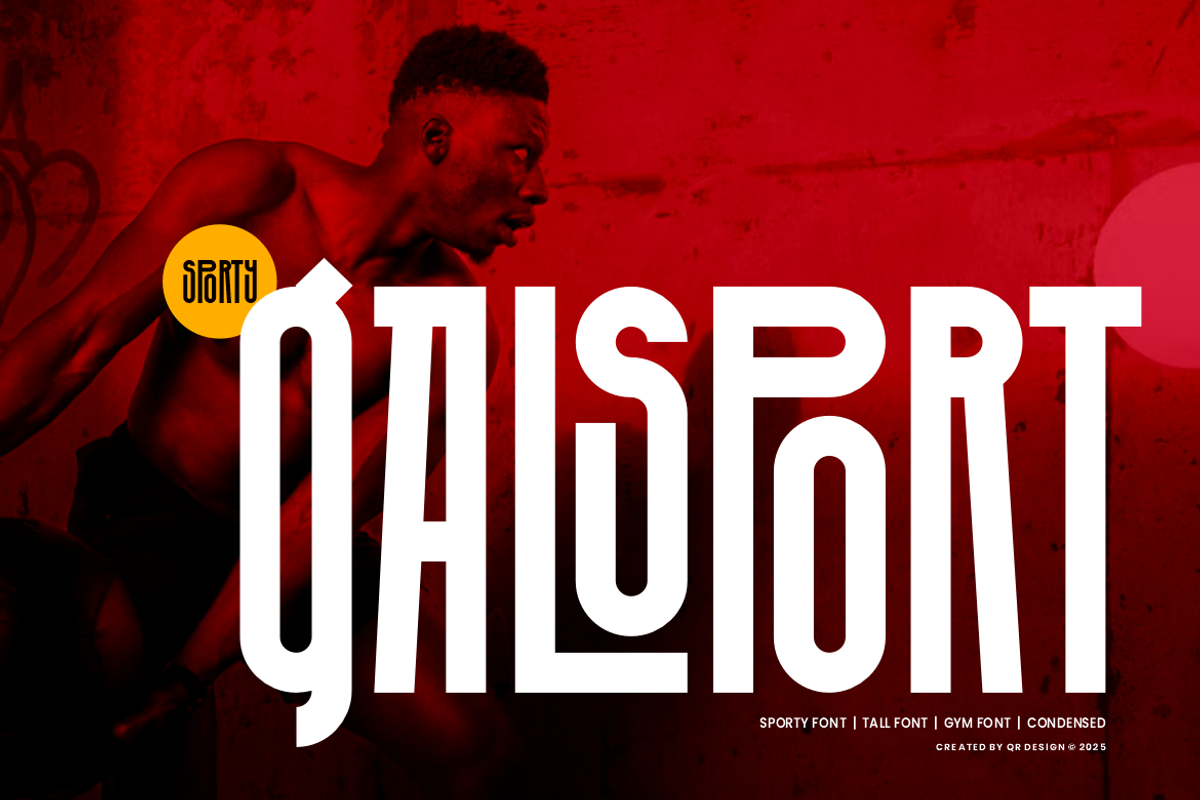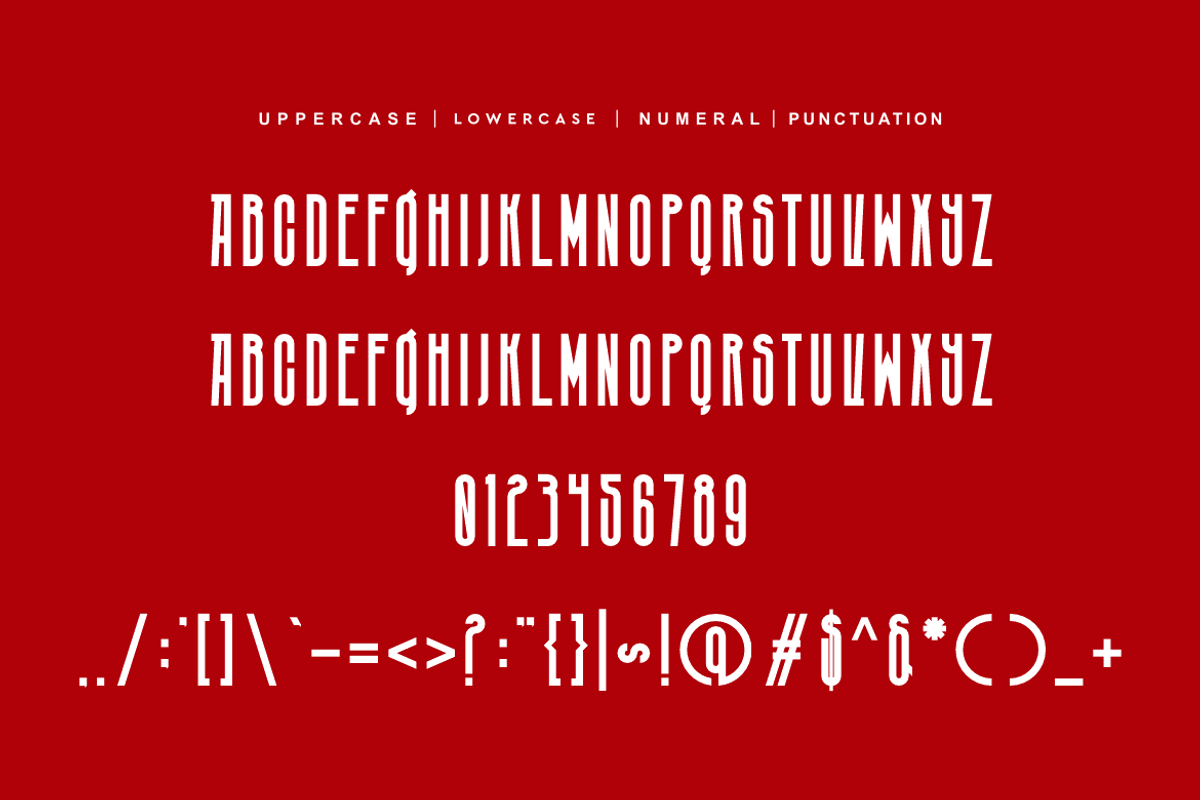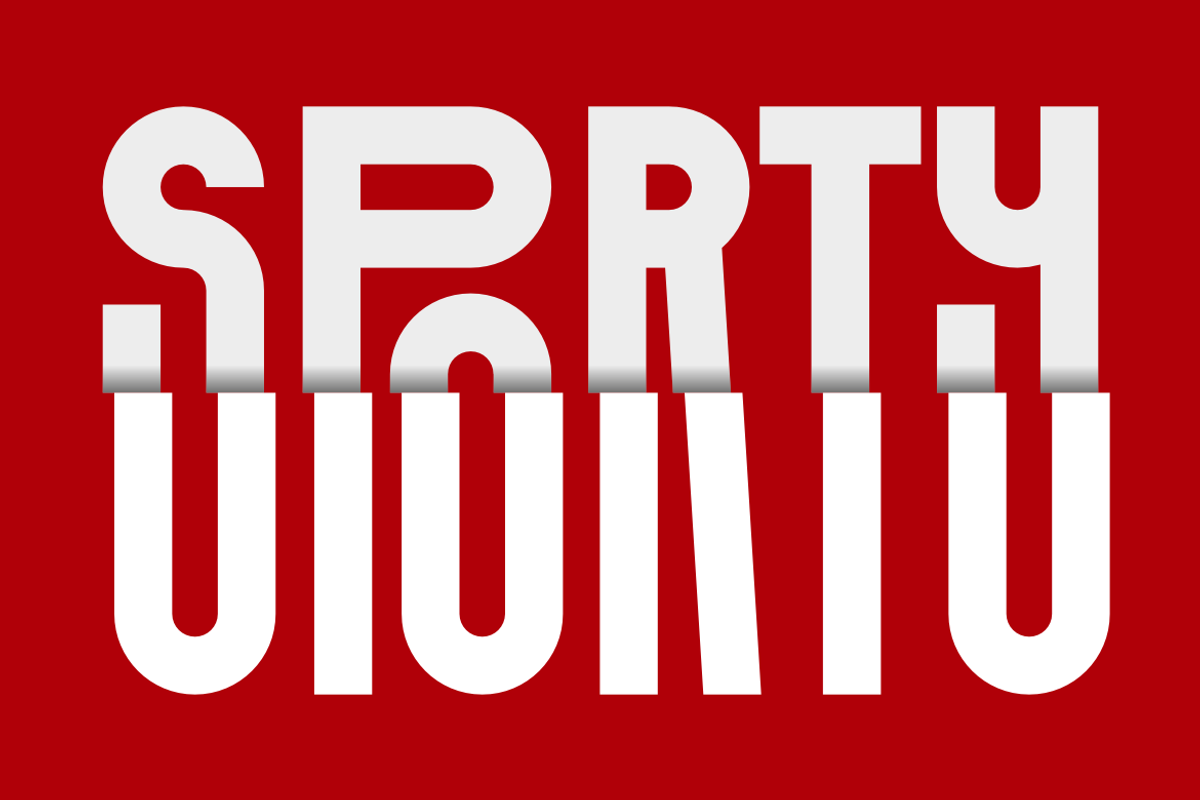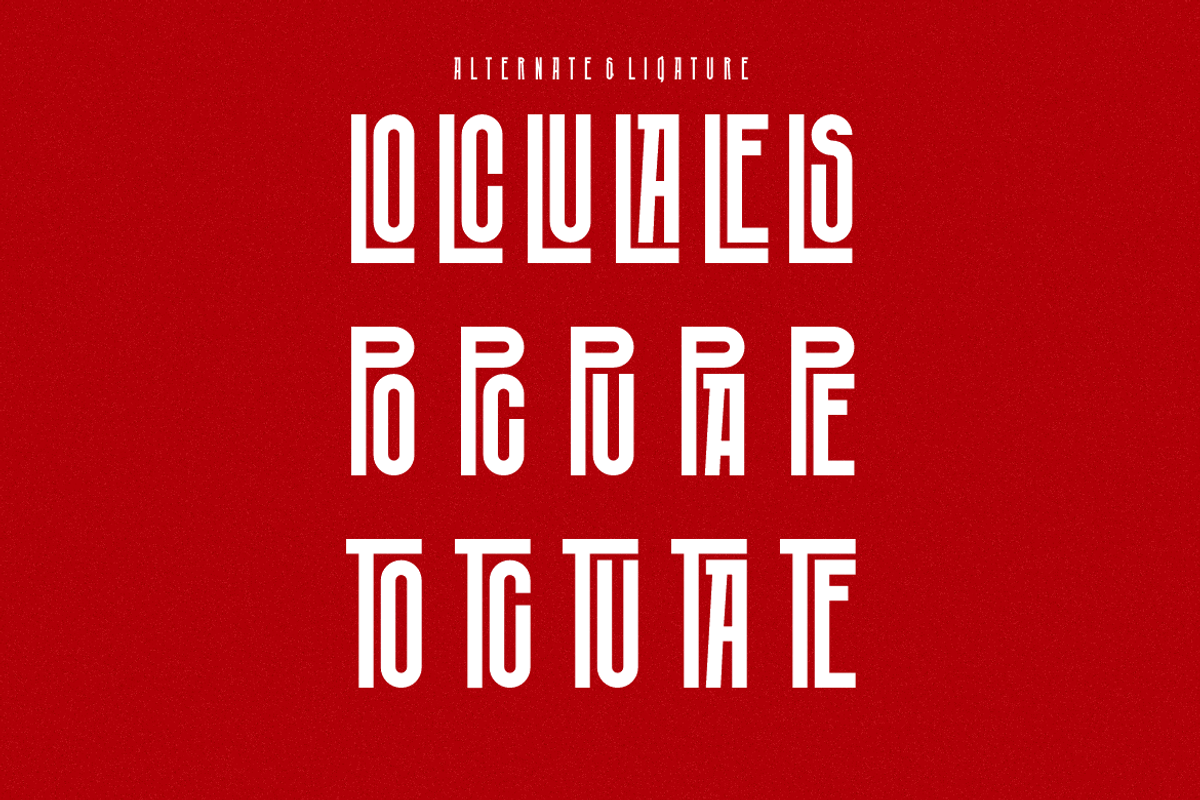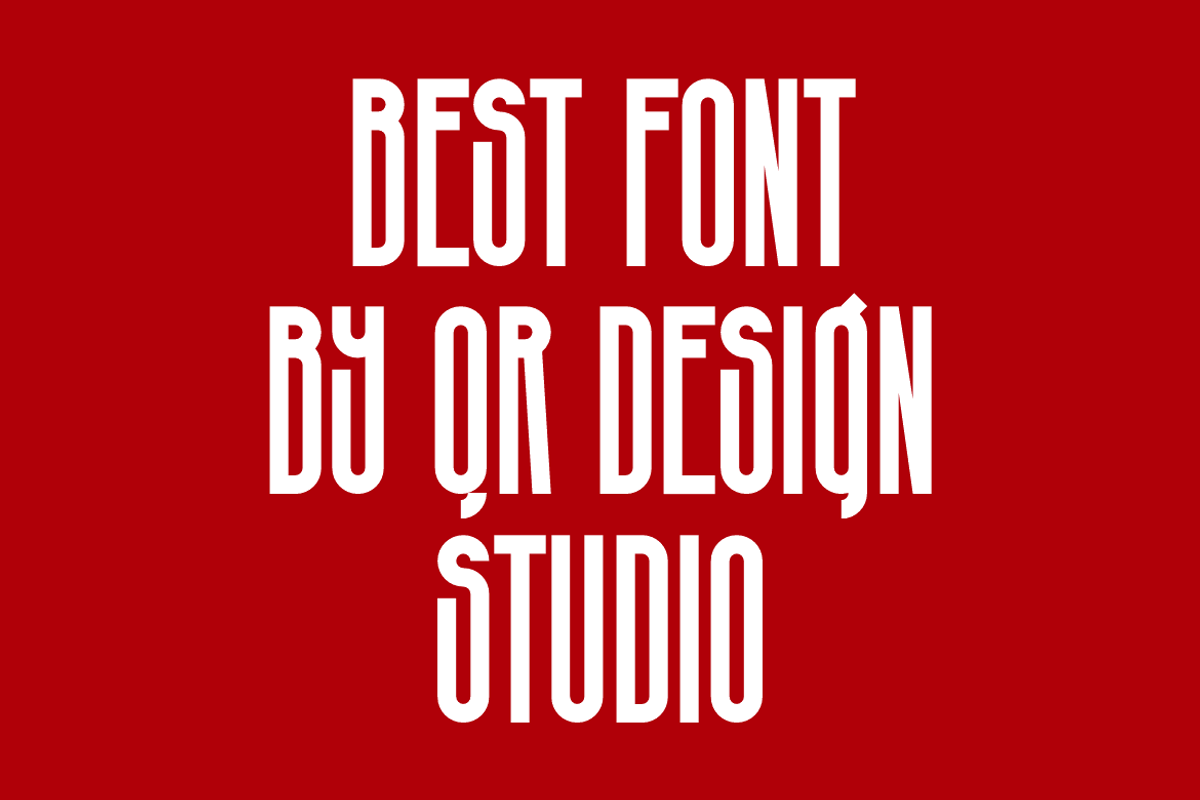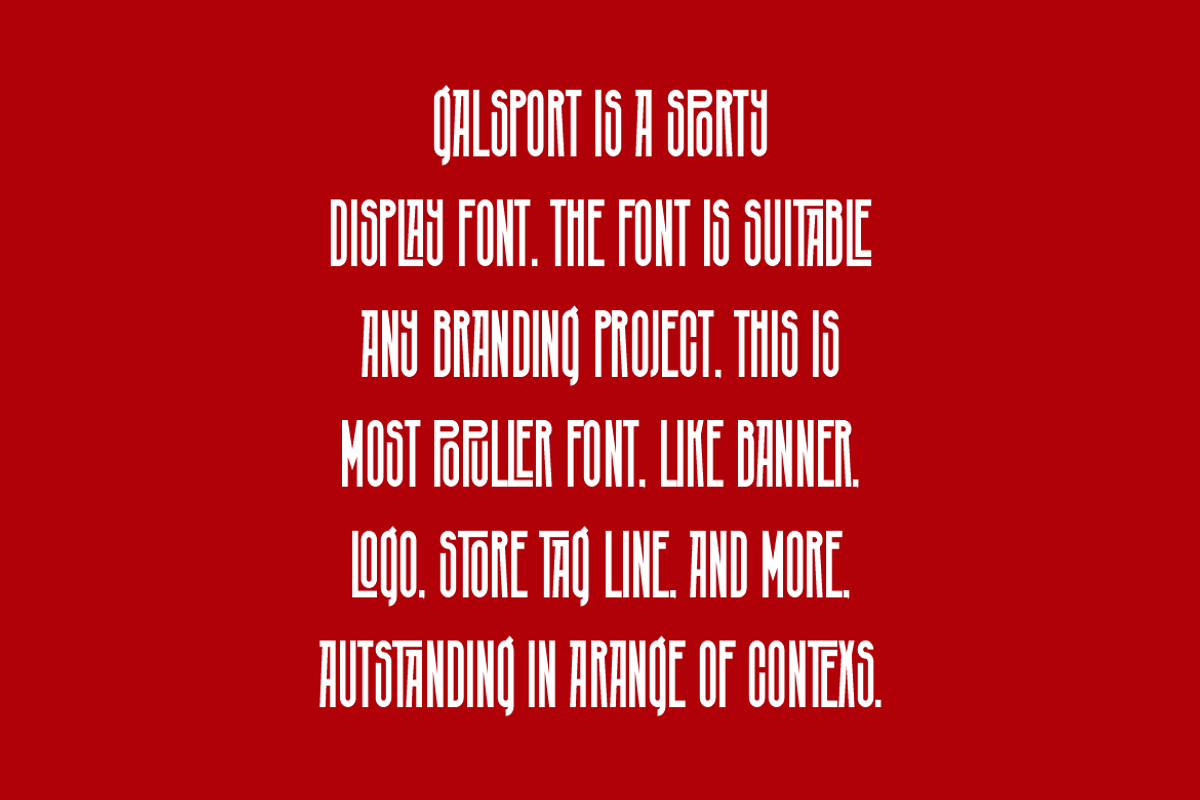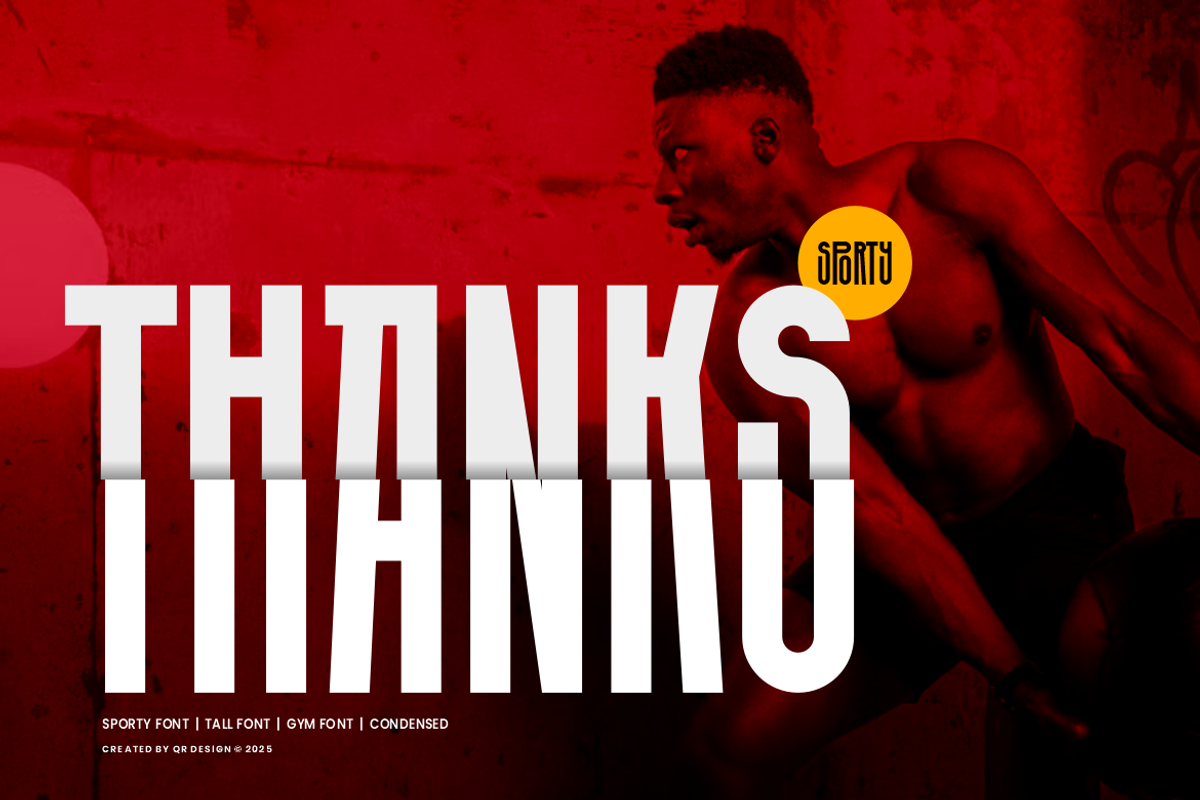
Galsport - Sporty Font
Galsport Font is a bold and authentic display font. The font is suitable for any branding project like poster, logo, sport, and many more. Outstanding in a wide range of contexts.